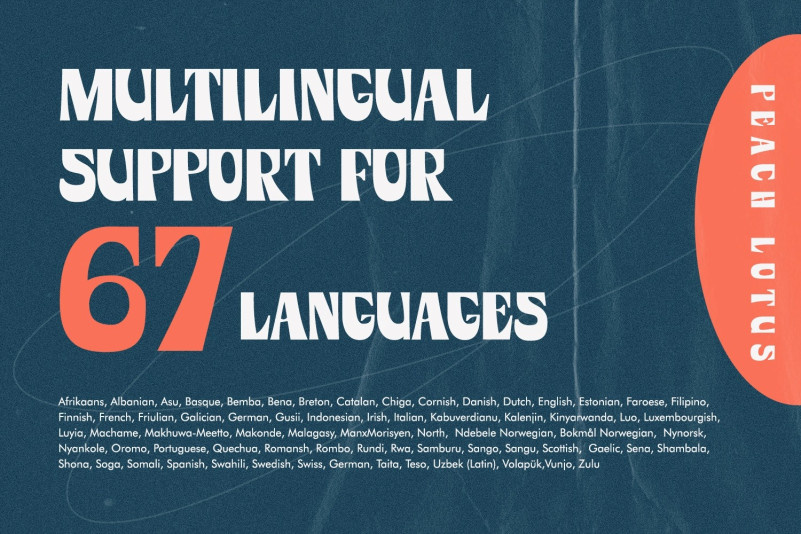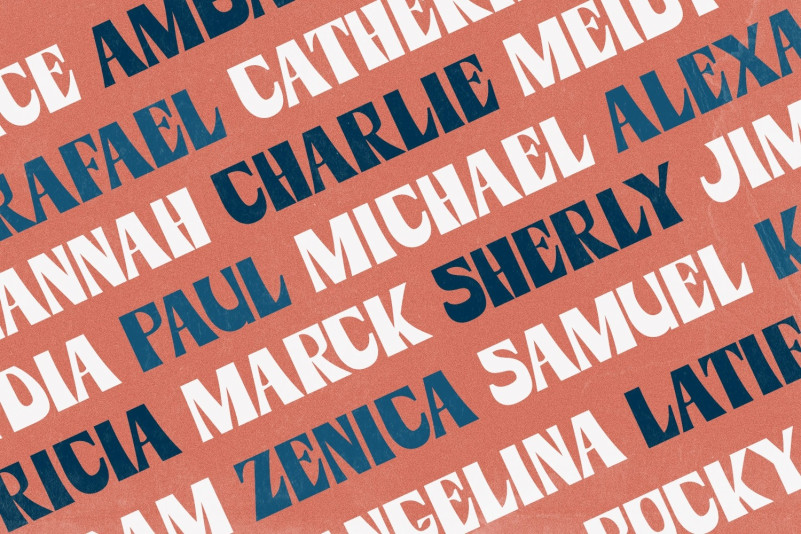
Peach Lotus Font
Peach Lotus Display Font is a display serif font we created by mixing the classical serif elements with big, bold-sized letters for you to impress and attract your audience. On top of that, it gives you more artistic, creative touches as a result of the display font combinations. A display font with thickly-lined and high contrast capital letters will produce a prominent display to strengthen the impressions delivered. In addition, you can apply this font for big-sized texts to be legible. Also, you can enjoy the available features here.